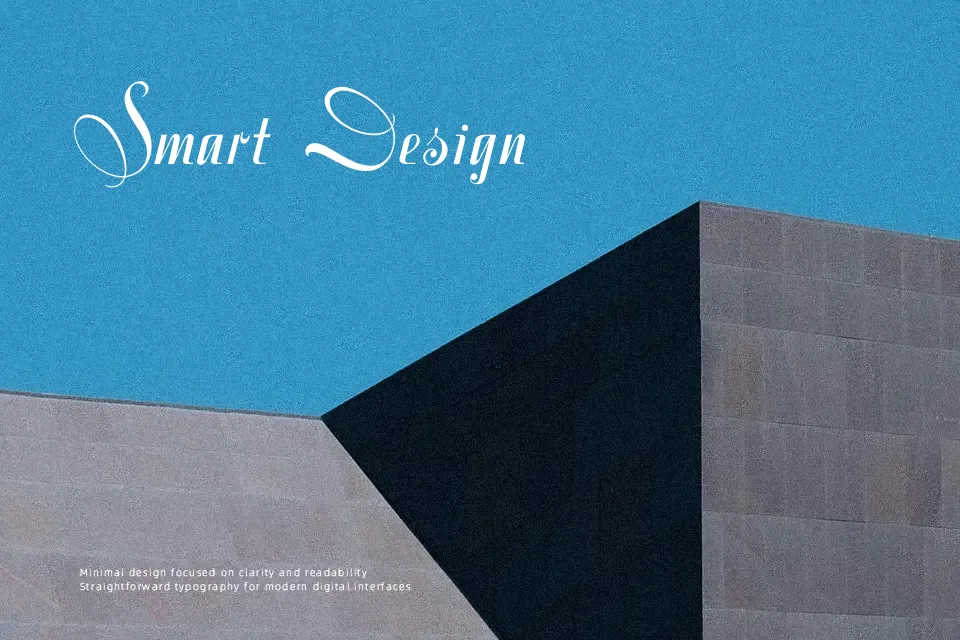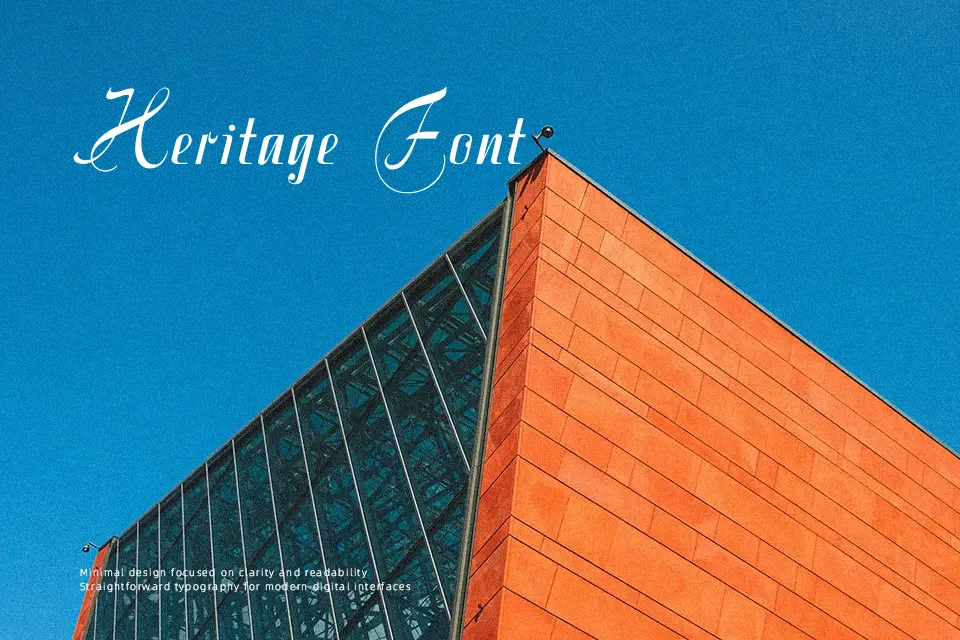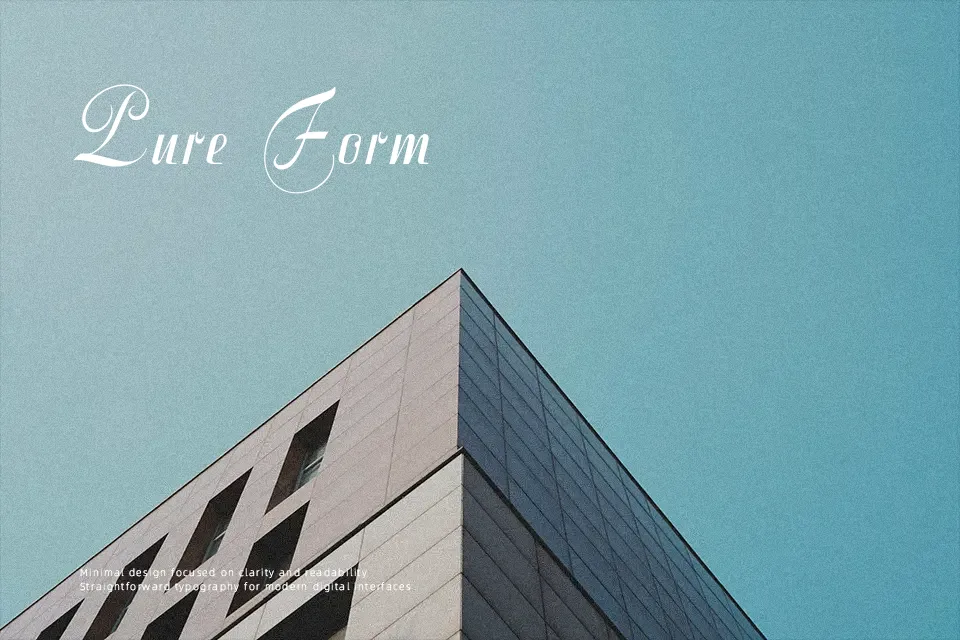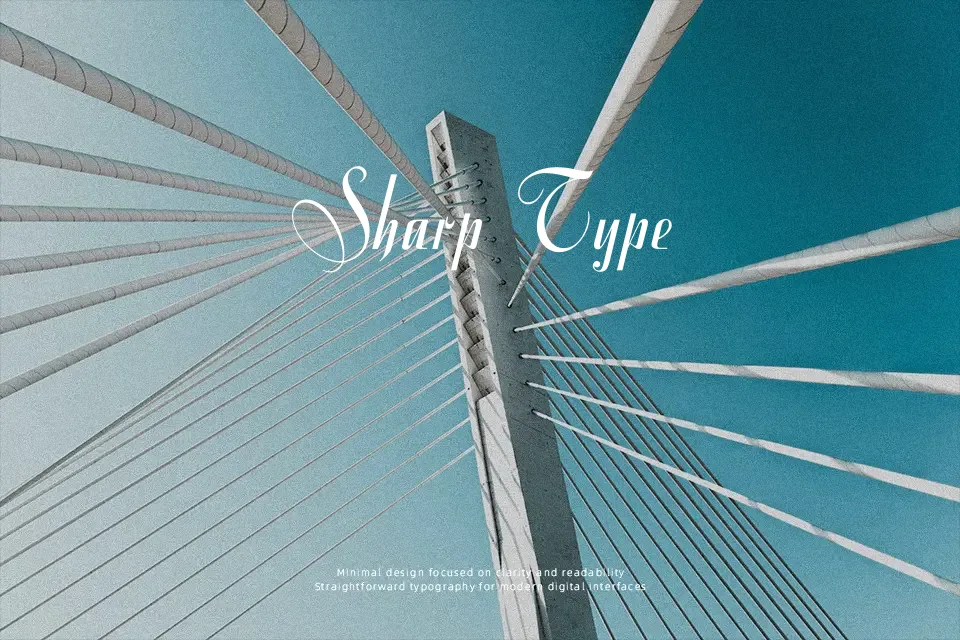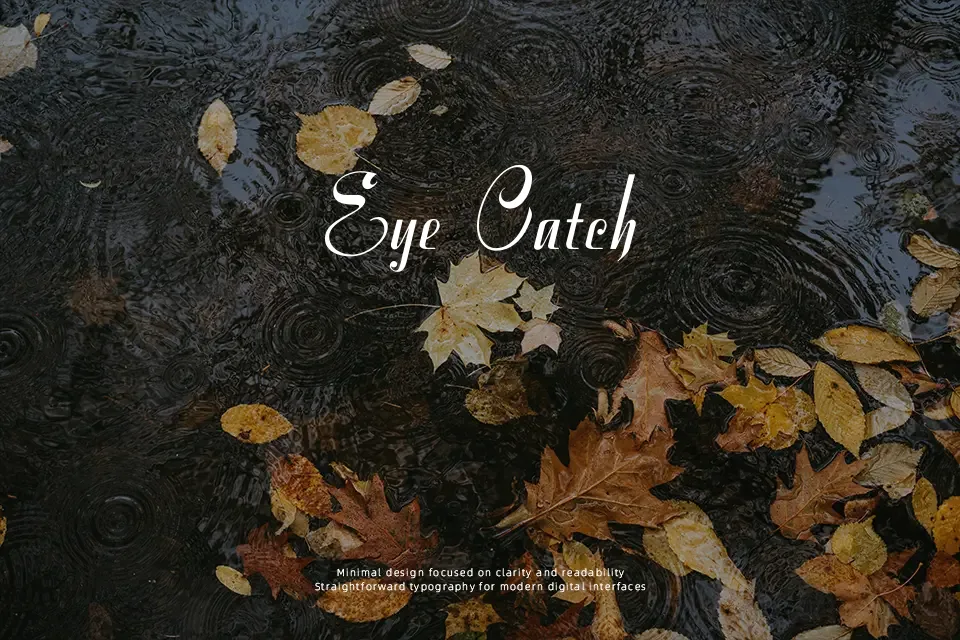
Variante Initials Font
Designed by ClaudeP
Variante Initials Font makes an immediate visual impression through its dramatic decorative structure and sweeping calligraphic swashes. Each uppercase glyph features prominent stroke contrast, blending thick main stems with elegant flowing loops that create an open and theatrical rhythm across wide character widths. The design functions exceptionally well for standalone drop caps, luxury invitations, and heritage packaging titles. However, the intricate hairline loops tend to blend together at smaller sizes, significantly impairing clarity in running text. Dense forms reduce comfort during extended reading, making the font an unsuitable choice for multi-line paragraphs.
Best For: illuminated drop caps, luxury wedding stationery, vintage monogram crests, historical novel chapter titles
Not Ideal For: continuous body text, mobile interface elements, compact data tables, technical documentation
Perfect for branding, headline, and invitation, with a classic and calligraphy style.